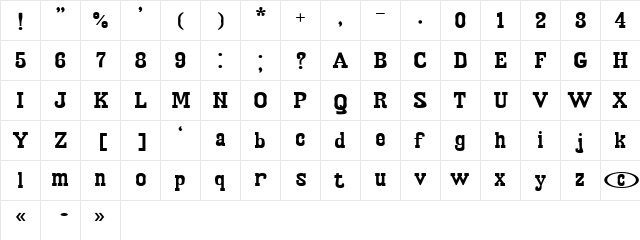
Egipet Bold
Design Context for Egipet Typeface
Egipet is a composed and adaptable typeface that performs quietly and consistently across a wide range of design contexts. The heavy weight commands attention and anchors typographic hierarchies.